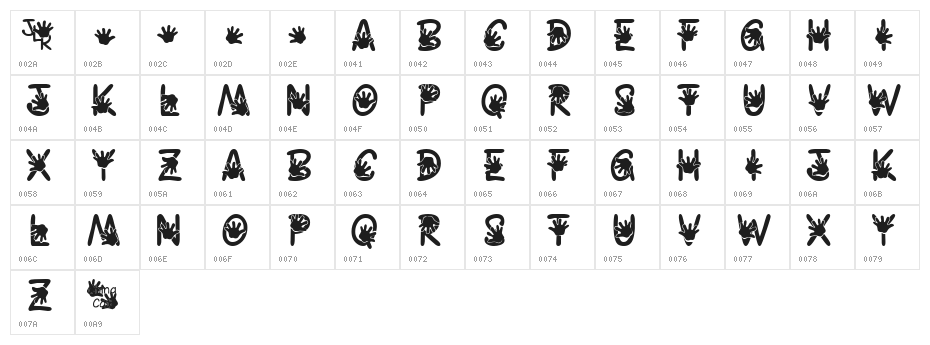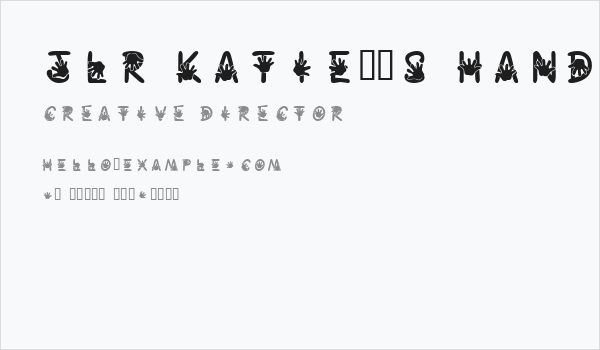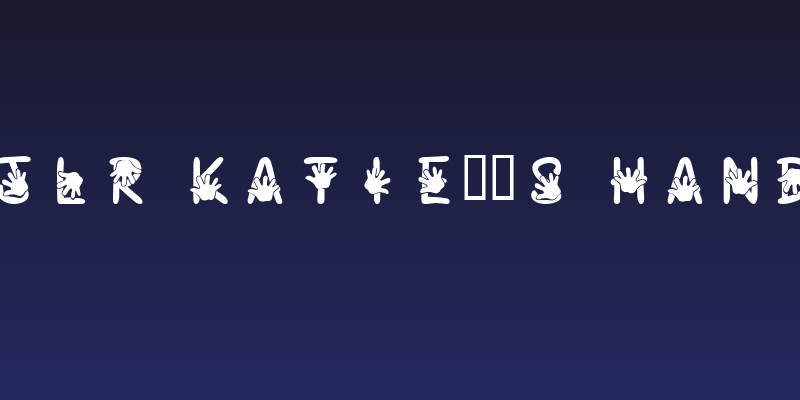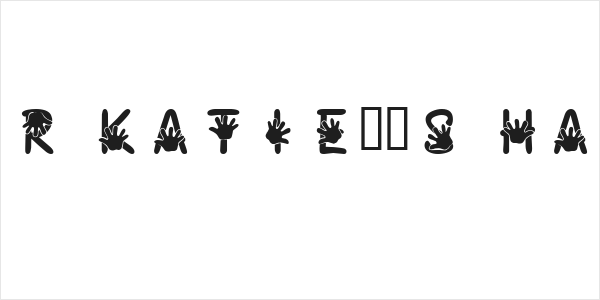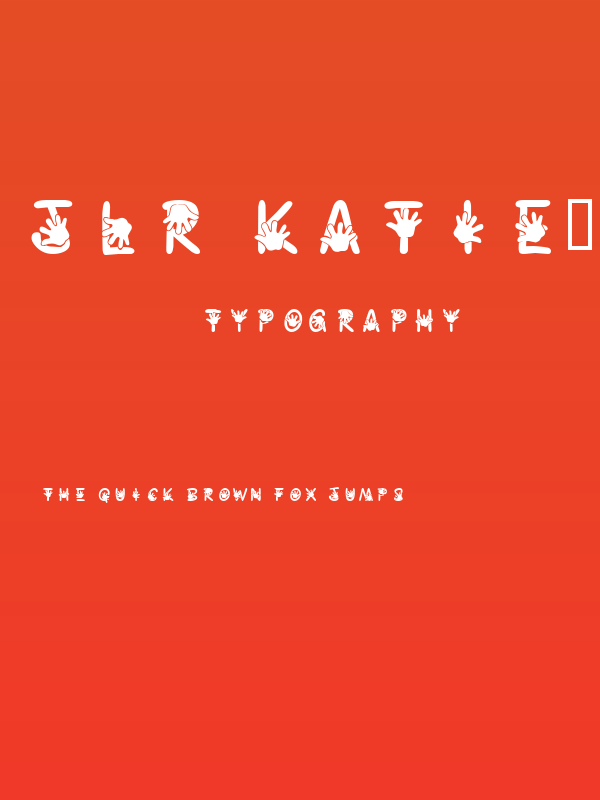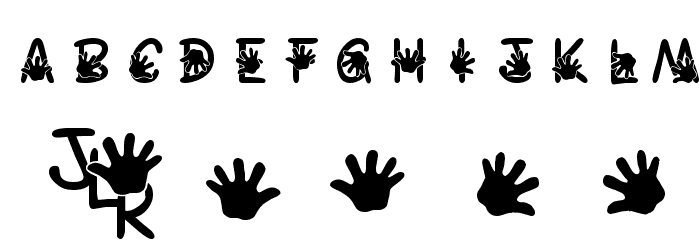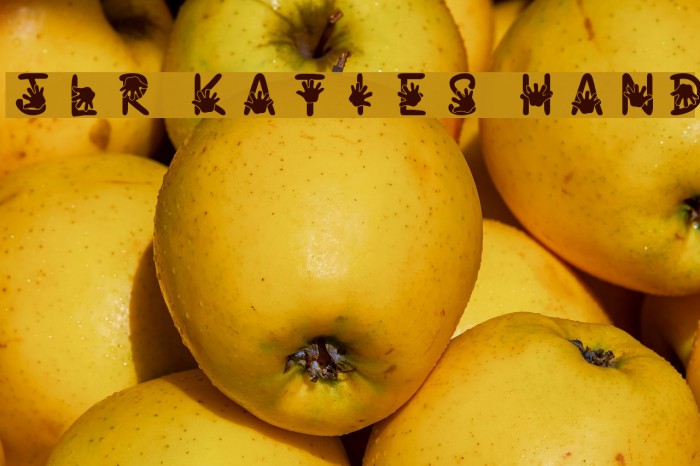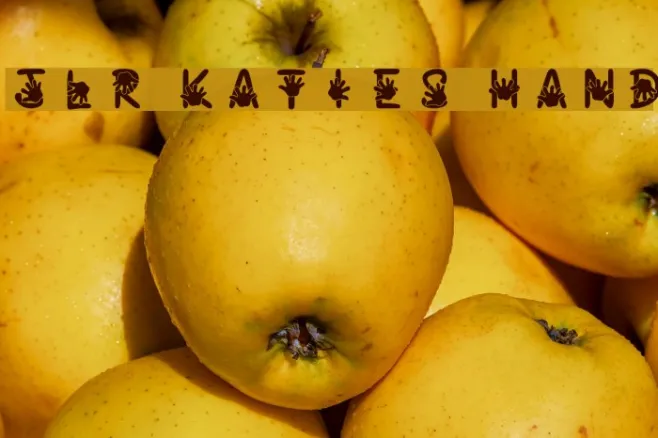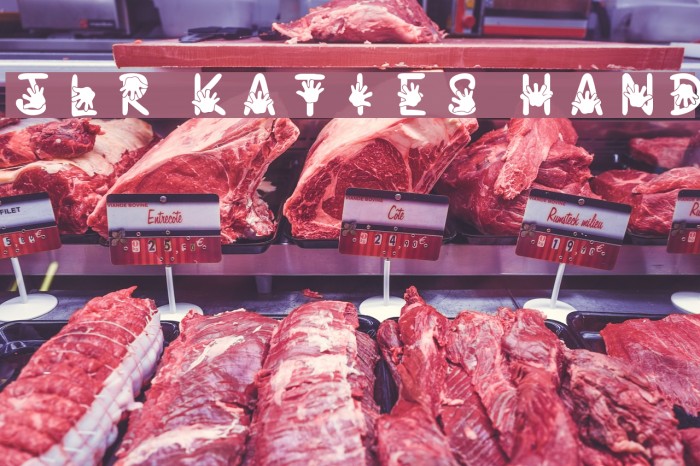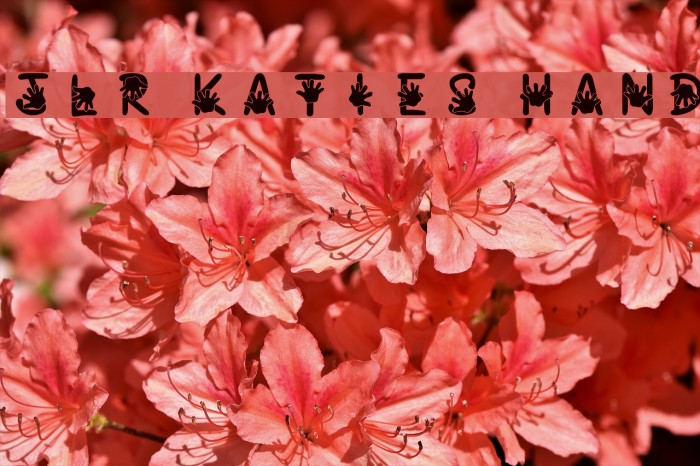
JLR Katie's Hand Font
JLR Katie's Hand Description
This playful and whimsical font features bold, uppercase letters adorned with handprint motifs. Each character is creatively integrated with a handprint, giving the font a unique and childlike charm. The design is consistent across all letters, maintaining a cohesive look while allowing each character to stand out with its distinctive handprint embellishment. The font's boldness ensures high visibility, making it suitable for eye-catching designs. Its decorative nature makes it ideal for projects that aim to convey a sense of fun and creativity.
| Proposed Projects | Ideal for children's book covers, playful posters, educational materials, and creative branding projects. |